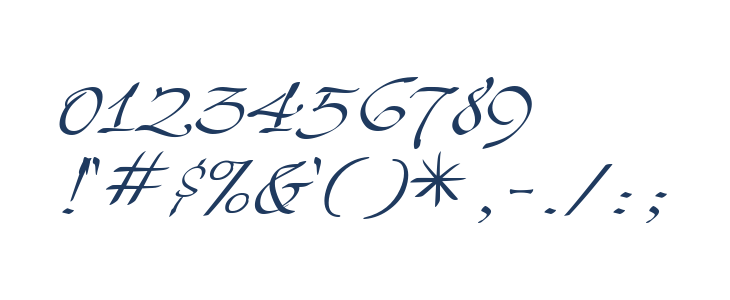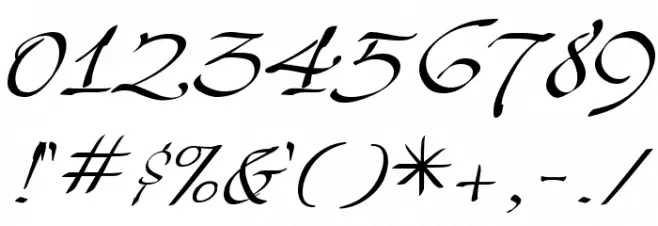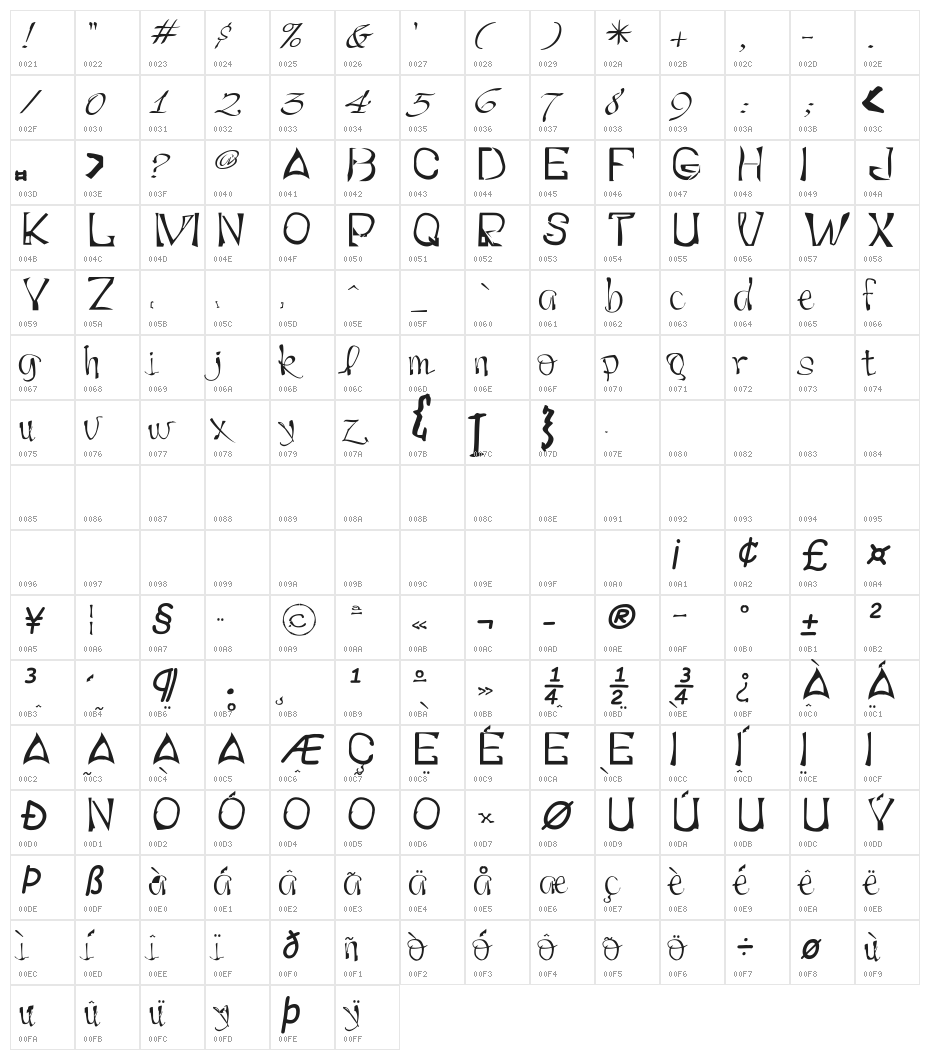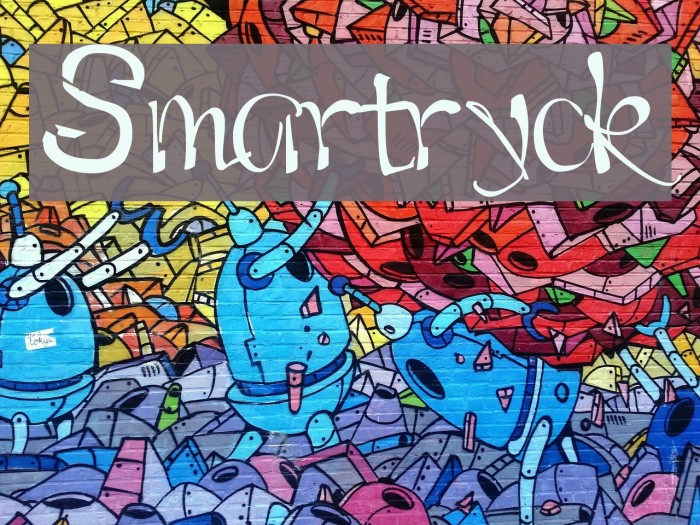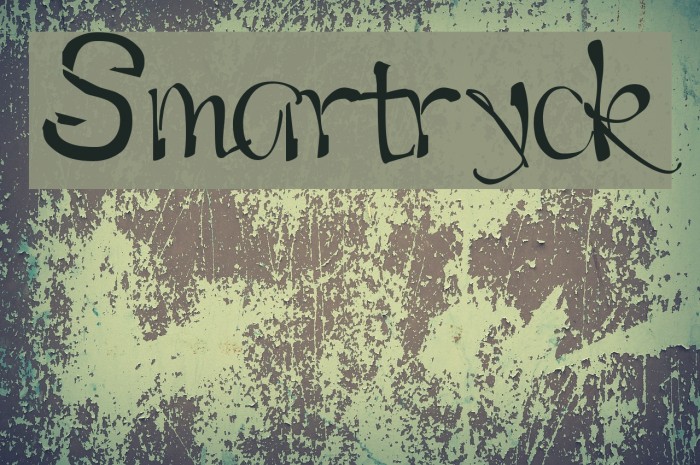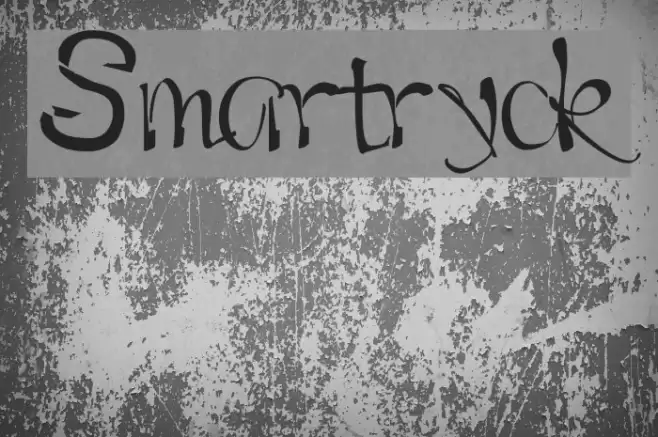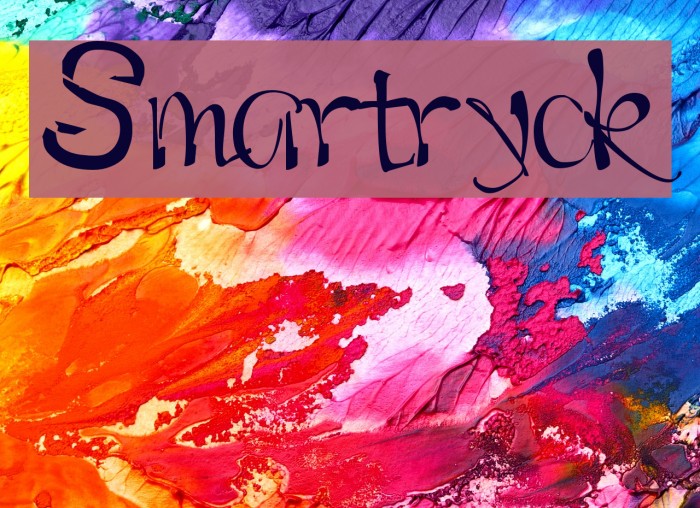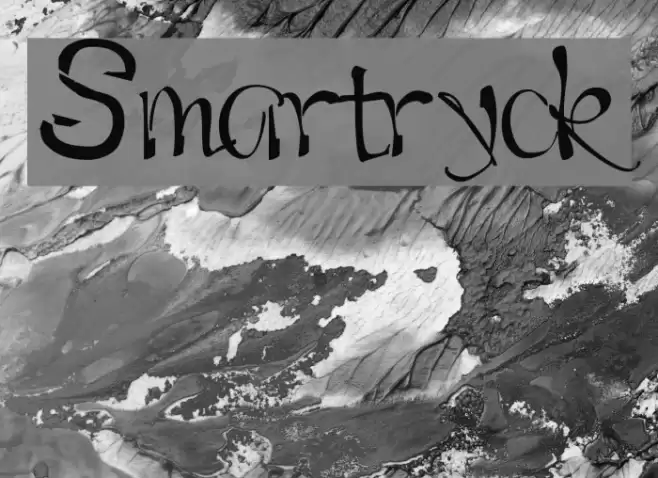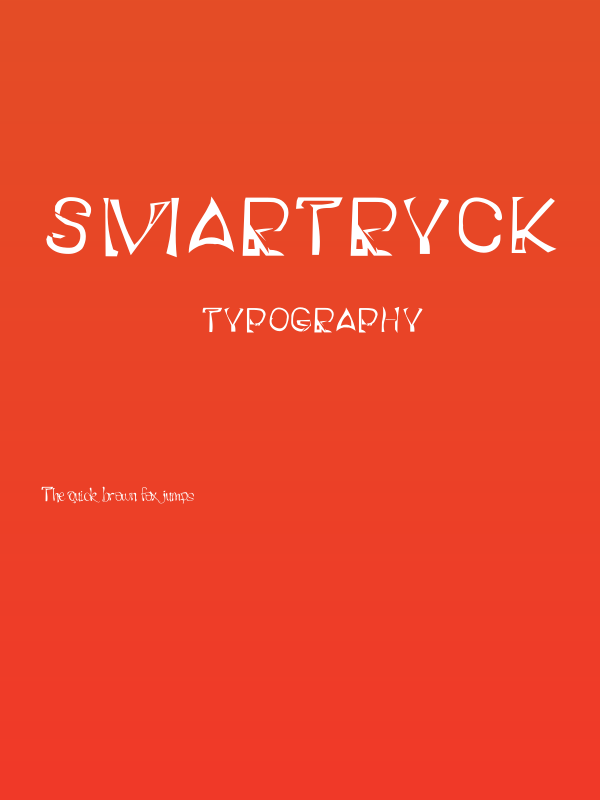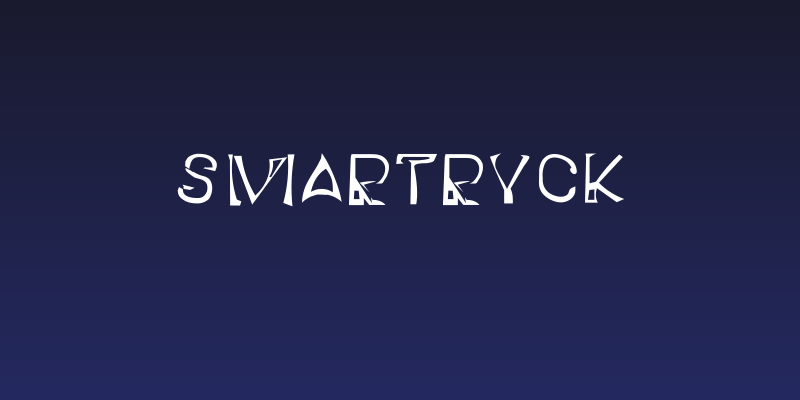
Smartryck Font
Smartryck Description
This font exhibits a highly decorative and artistic style, characterized by its unique and intricate letterforms. The uppercase letters are bold and angular, with sharp edges and a dynamic flow that gives them a sense of movement. The lowercase letters maintain a similar artistic flair, with exaggerated curves and strokes that create a whimsical and playful appearance. The numerals and special characters follow the same design principles, ensuring consistency across the entire typeface. The overall aesthetic is both modern and avant-garde, making it suitable for creative and unconventional projects.
| Overall Style | Modern, Avant-garde |
| Proposed Projects | Ideal for artistic posters, album covers, branding for creative industries, and any project requiring a distinctive and eye-catching typeface. |